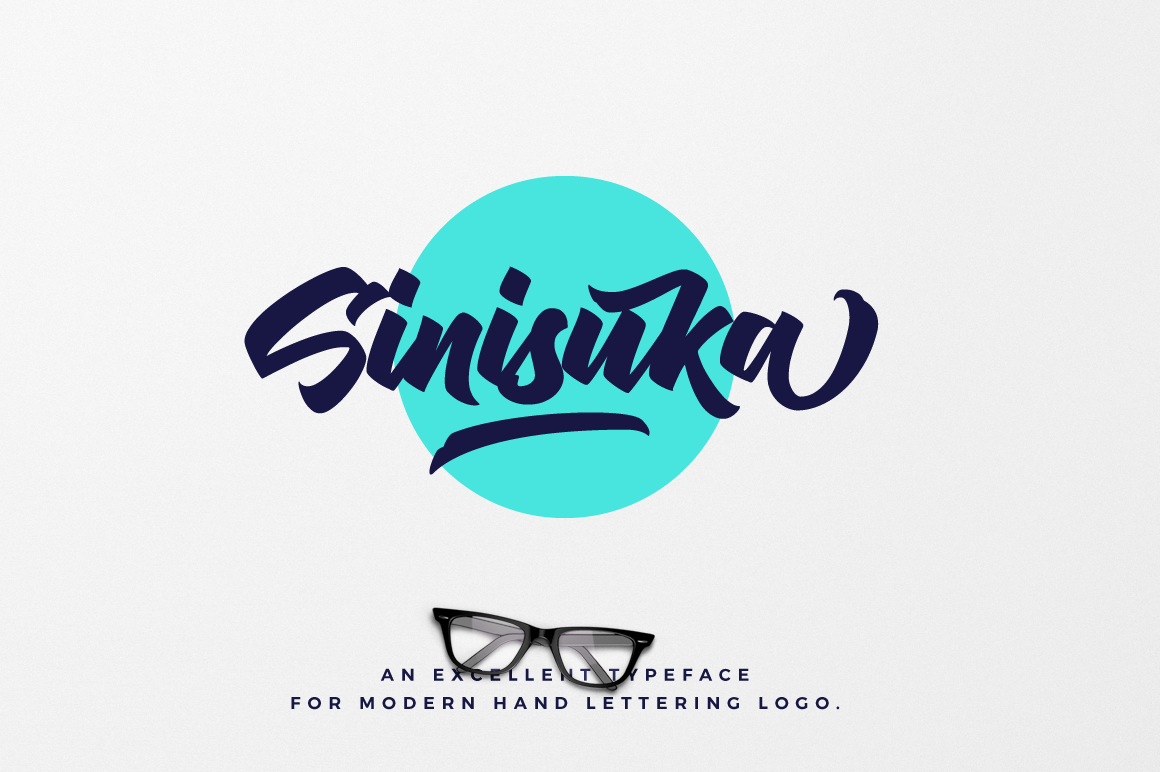
Sinisuka Logo Font
Sinisuka an excellent font for modern hand-lettered logo designs.
Suitable for any design needs : logo, branding, modern advertising design, logos, art quote, book / cover Title, special events, custom mug, pillow, t-shirts, any hand-lettered needs and more.
Sinisuka Logo Font ( .ttf & .otf) comes with upper and lowercase Standard Characters, Punctuation, Numerals. And other Glyphs variation of the OpenType features such as Standard Ligature, Stylistic Alternate and Stylistic Set (ss01, ss02, ss03, ss04), and Swash. Accessible in the Adobe Illustrator and adobe indesign Glyphs panel, or under Stylistic Alternates in the Adobe Photoshop OpenType menu.